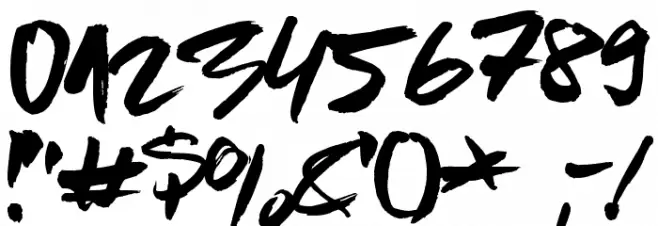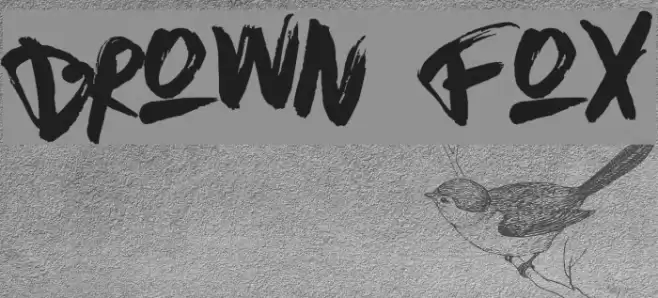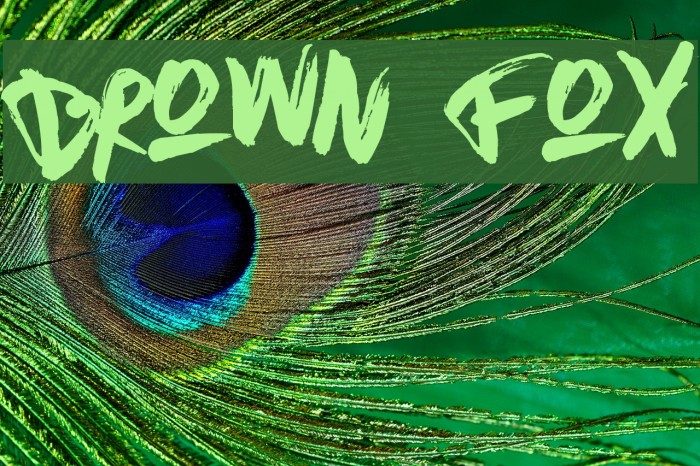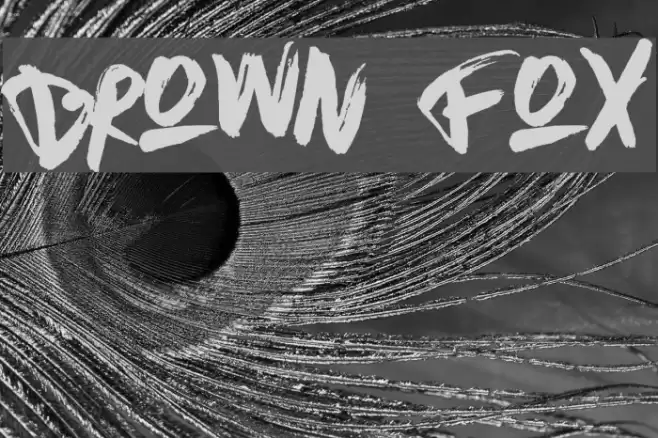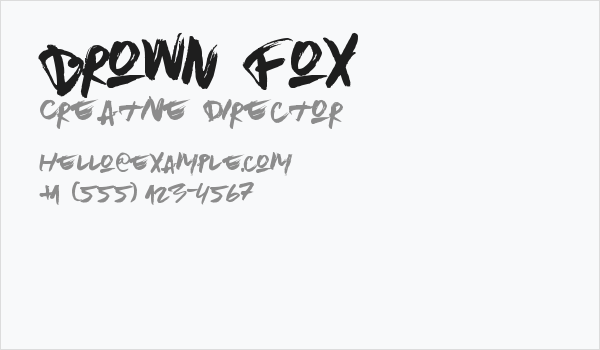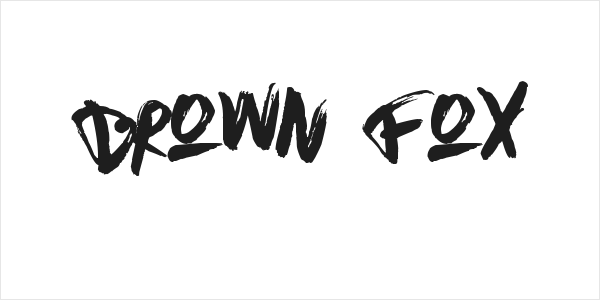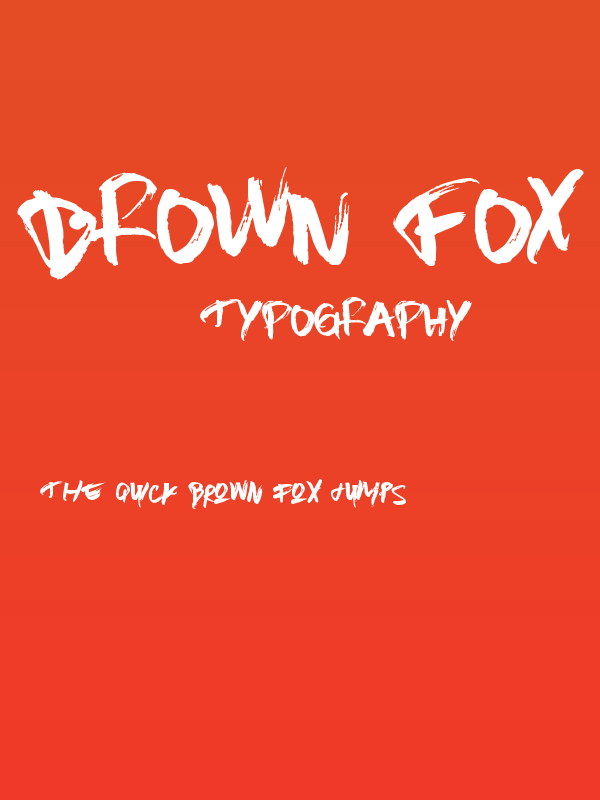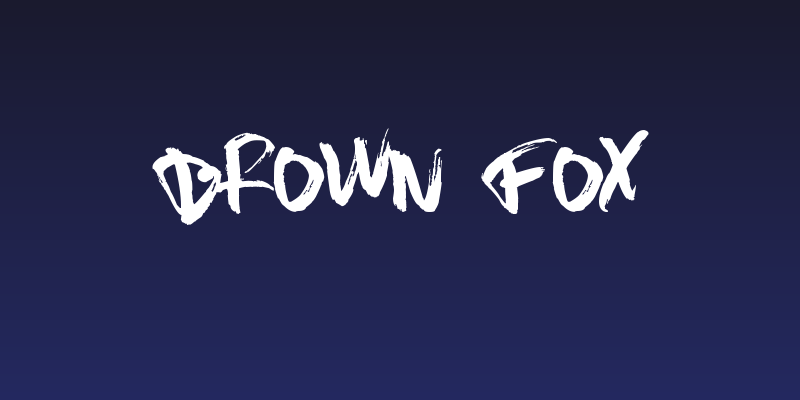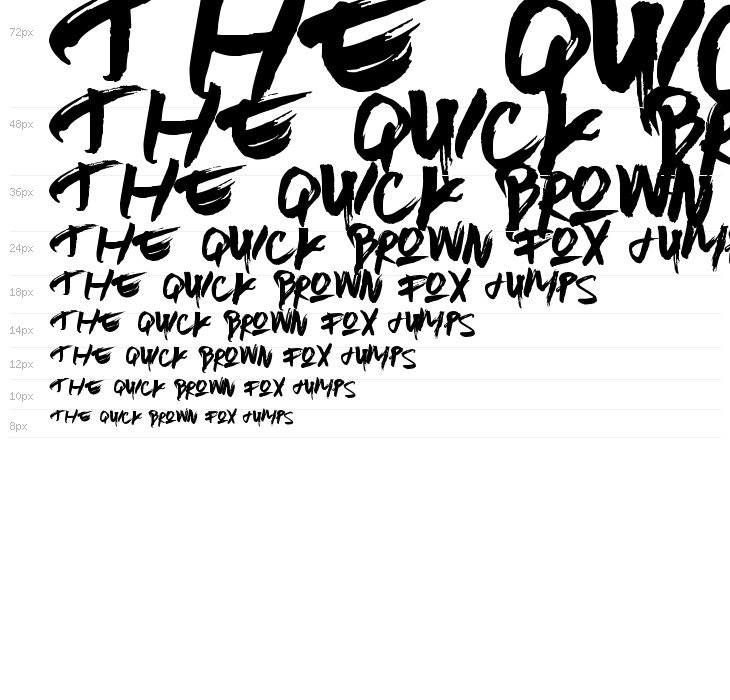
Brown Fox Font
Brown Fox Description
This font exudes a bold, energetic, and expressive style, characterized by its brush-like strokes and dynamic movement. The letters are crafted with a sense of urgency and spontaneity, giving it a raw and artistic feel. Each character varies slightly in width and height, adding to its hand-drawn appearance. The uppercase and lowercase letters maintain a consistent style, while the numbers and special characters integrate seamlessly, enhancing its versatility. The overall design is striking and impactful, making it ideal for projects that require a strong visual statement.
| Proposed Projects | Perfect for artistic posters, music album covers, graffiti art, and branding that requires a bold statement. |